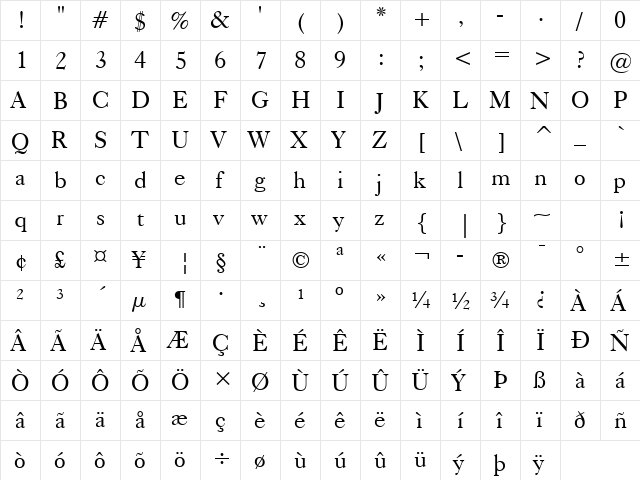
Caslon540 BT Roman
Design Context for Caslon540 BT Typeface
Caslon540 BT takes a measured approach to typography — its balanced proportions and neutral character make it a reliable workhorse for both digital and print work.